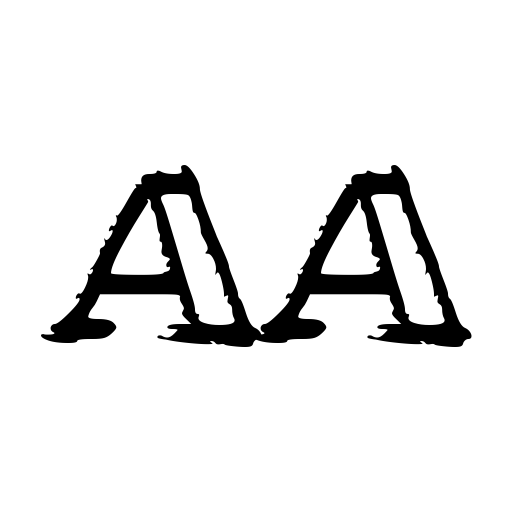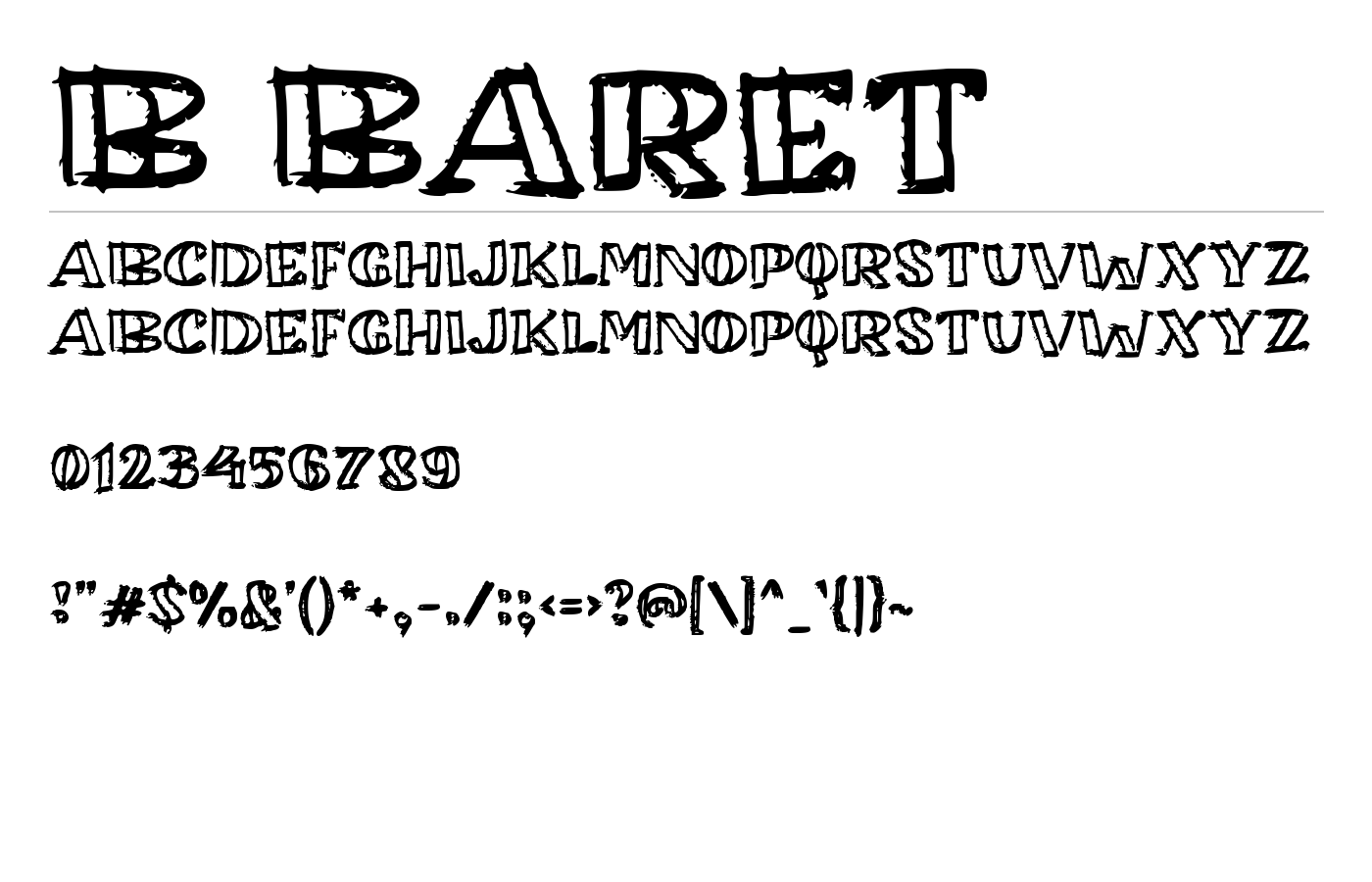
B Baret is a decorative serif font with a bold, textured appearance that gives it a playful yet slightly rugged character. Its uneven edges and distressed look make it ideal for creative and casual designs, adding a handcrafted, vintage feel to headlines, posters, and branding that seek a unique, artistic touch. This font works best in display uses where its distinctive style can stand out and create a memorable impression.
b Baret Font